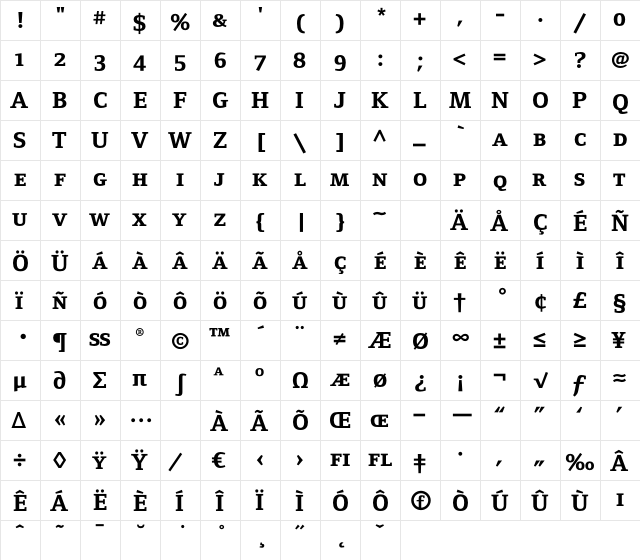
FoundryFormSerif ExtraBoldSC Font Preview
FoundryFormSerif ExtraBoldSC
Design Context for FoundryFormSerif Typeface
FoundryFormSerif brings classic typographic sensibility to the table — its serifs and measured letterforms reflect centuries of print heritage. The heavy weight commands attention and anchors typographic hierarchies.
Pro Tip: Set FoundryFormSerif with slightly loose tracking in headlines to let each letterform's detail read clearly at display sizes.